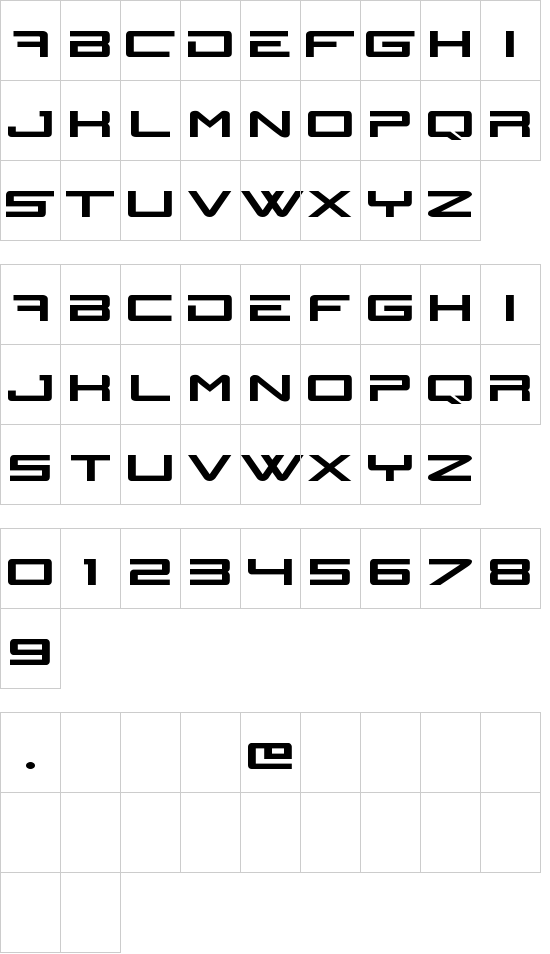
N-Gage
About N-Gage
N-Gage is a stylized display font drawn with a sleek, technical character inspired by gaming hardware, so it reads as recognizable and digital at a glance. The forms are bold and precise, with a slightly engineered feel that suggests buttons, screens, and product casings rather than anything hand-drawn.